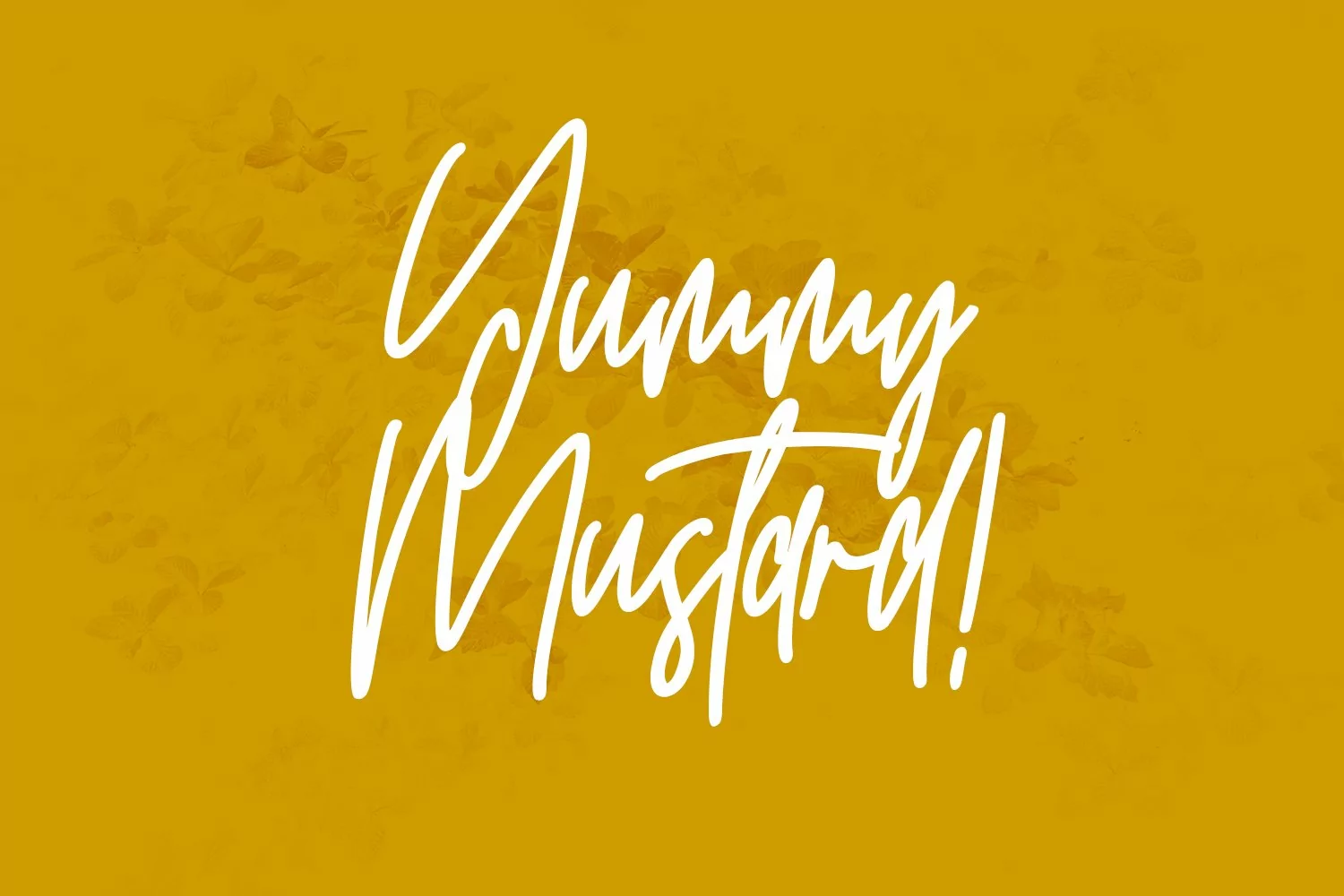
Entwisted is an unique fancy modern script font. With regular mono-line stroke, fun character with a bit of ligatures and alternates. To give you an extra creative work. Entwisted font support multilingual more than 100+ language. This font is good for logo design, Social media, Movie Titles, Books Titles, a short text even a long text letter and good for your secondary text font with sans or serif. Make a stunning work with Entwisted font.